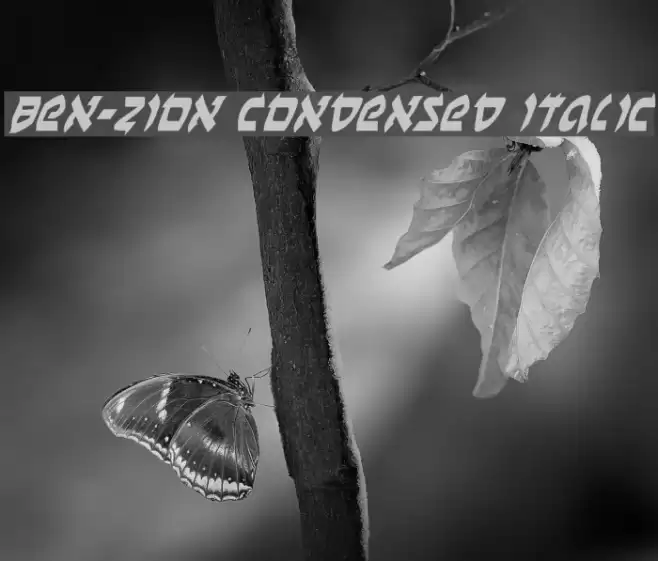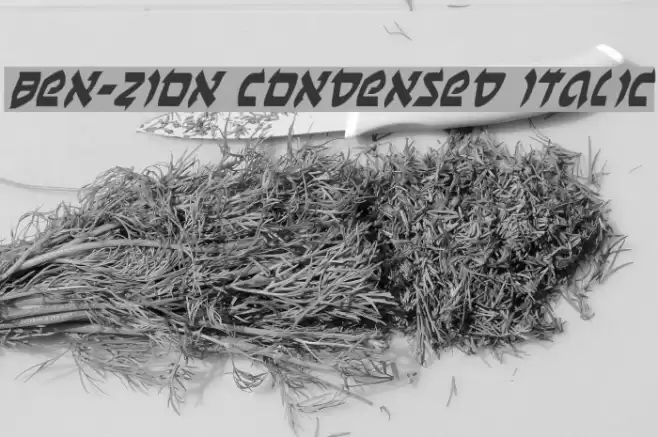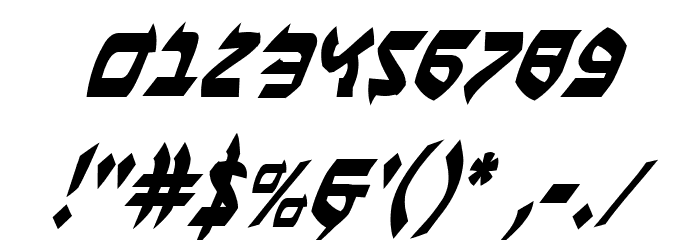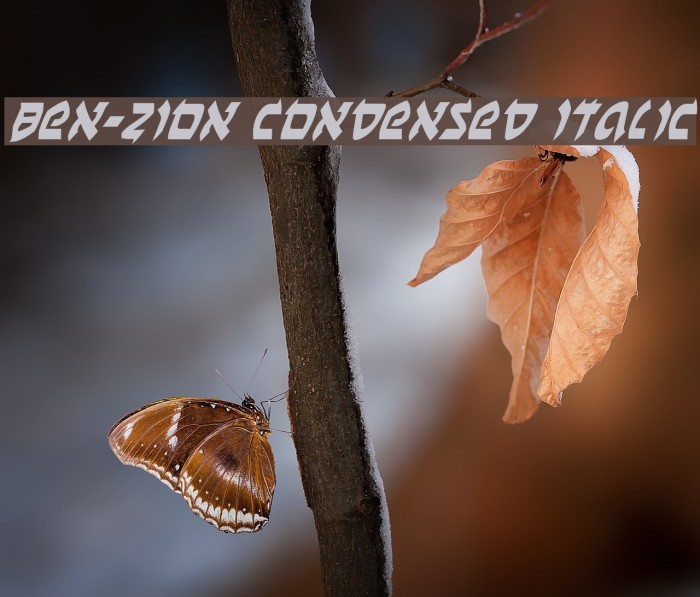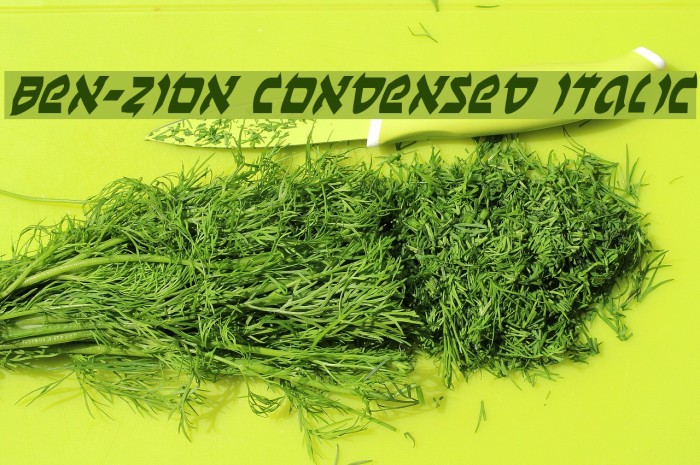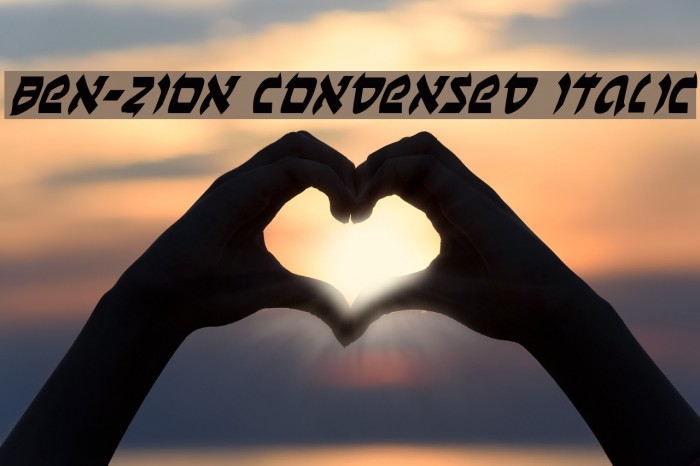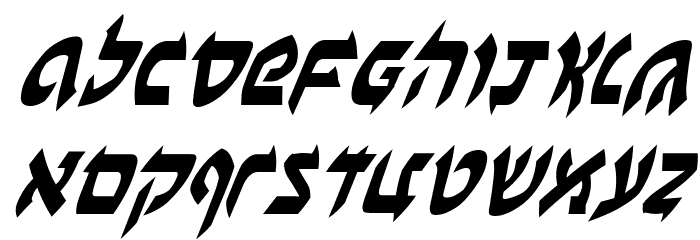
Ben-Zion Condensed Italic Font
Ben-Zion Condensed Italic Description
This font features a bold and dynamic style with sharp, angular lines and a condensed form. The italic slant adds a sense of motion and energy, making it stand out with its unique geometric shapes. The uppercase and lowercase letters maintain a consistent style, with each character exhibiting a distinct, edgy appearance. The numbers and special characters follow the same design principles, ensuring uniformity across the typeface. This font's strong visual impact makes it suitable for attention-grabbing designs.
A bold, angular, and condensed italic font with a dynamic and edgy style from Uncategorized fonts.
- Proposed Projects: Ideal for modern branding, sports team logos, dynamic posters, and edgy graphic designs.